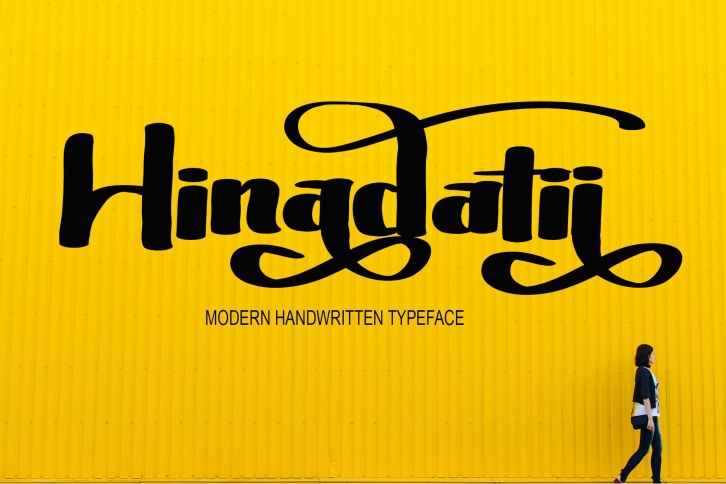
Hinadati This is a font written by hand using a tablet, this font is very simple which I wrote very carefully. The font can also be used for websites, or wedding invitations, business cards, signatures and for advertisements, be it product advertisements or other advertisements. Even though it looks simple, this font still looks cool and stylish.